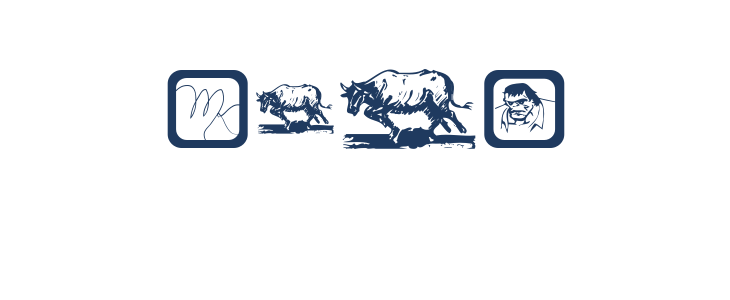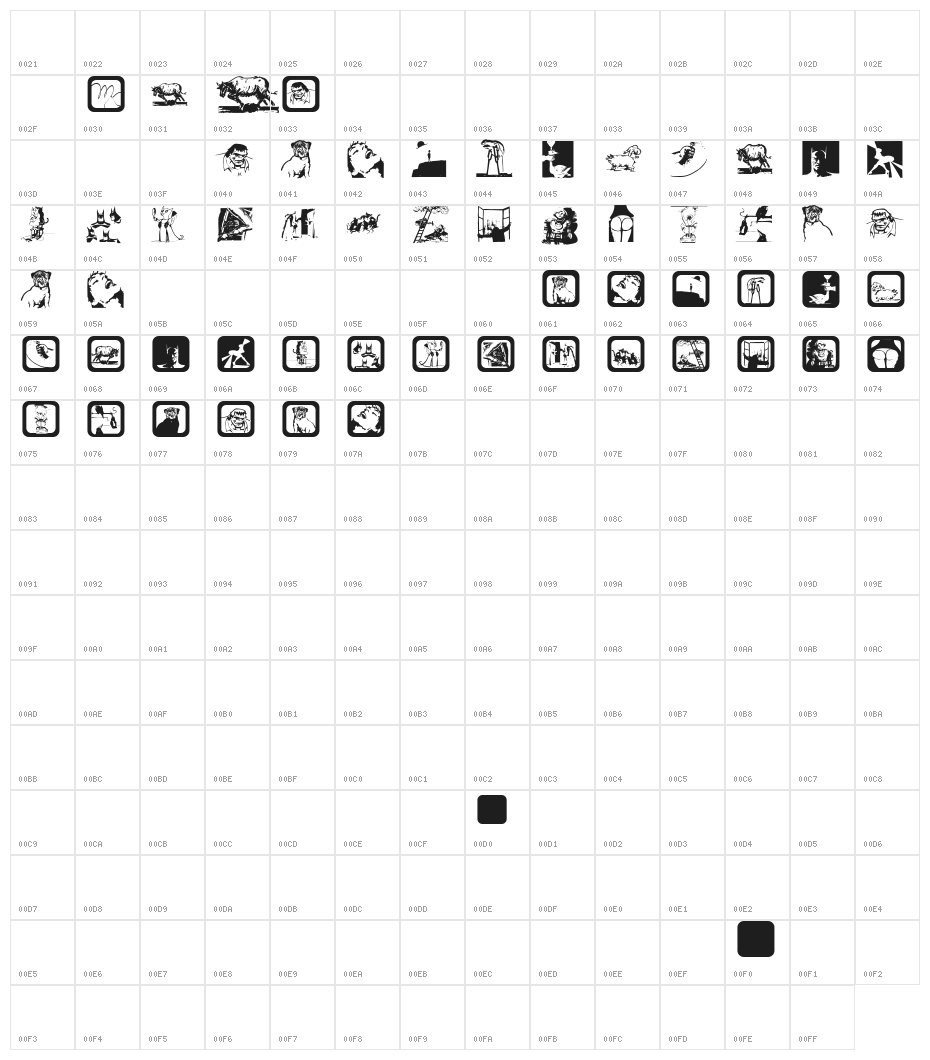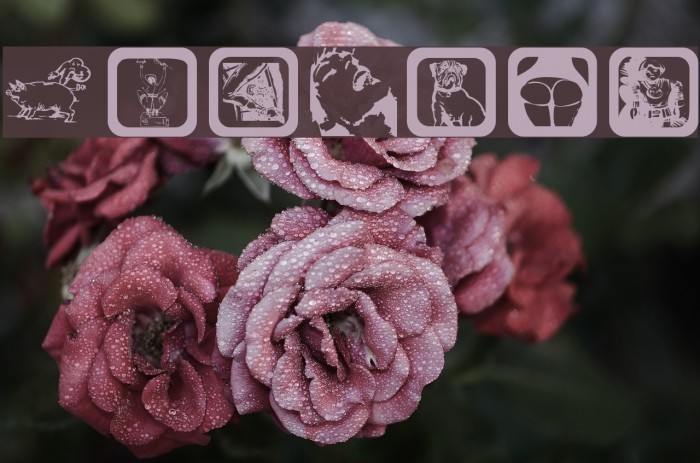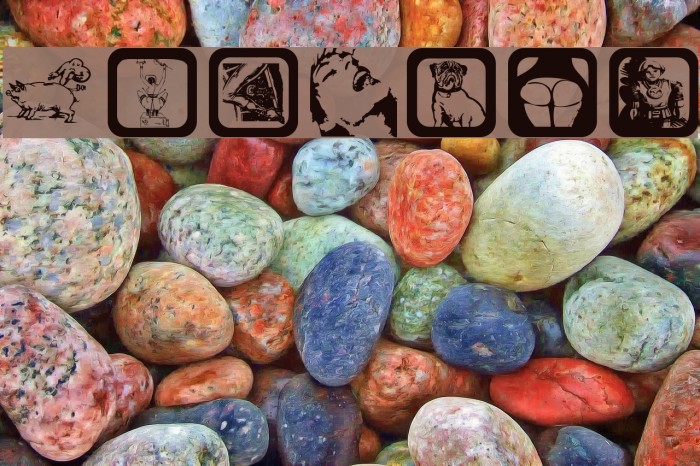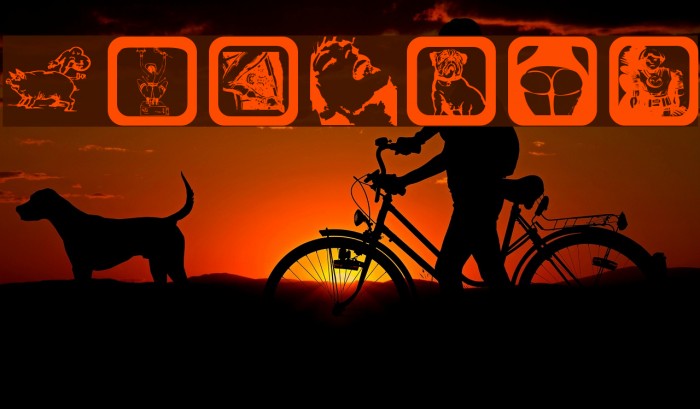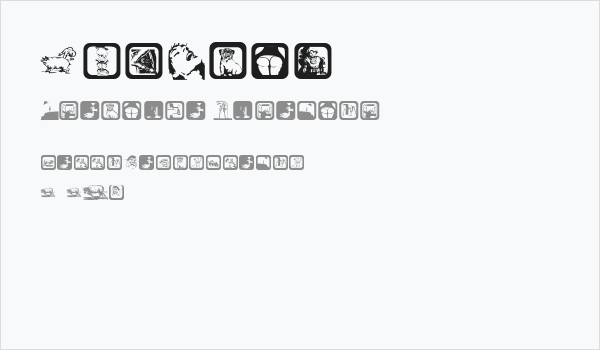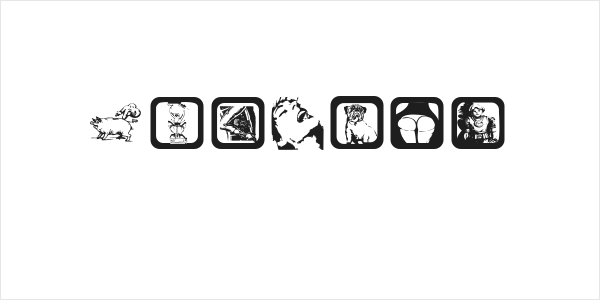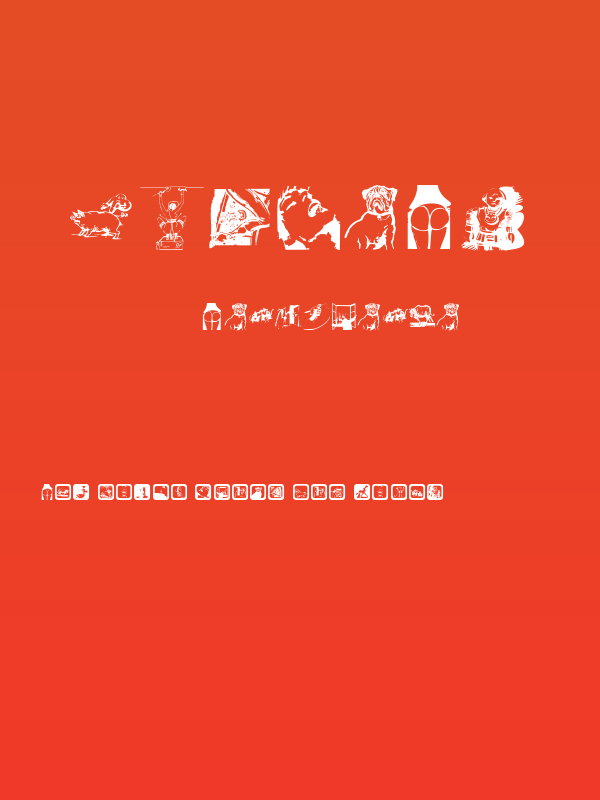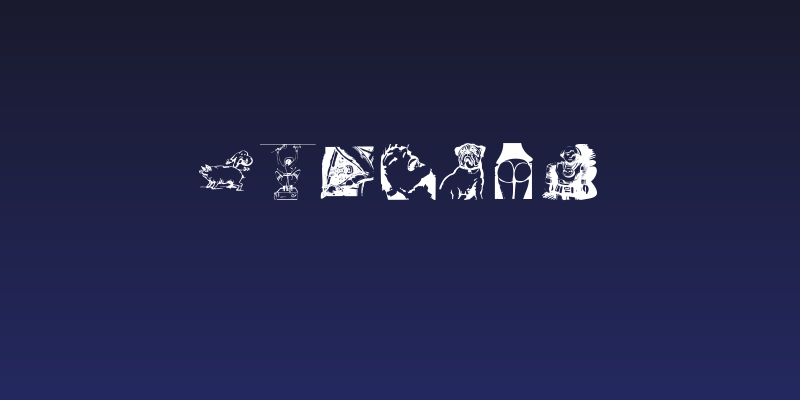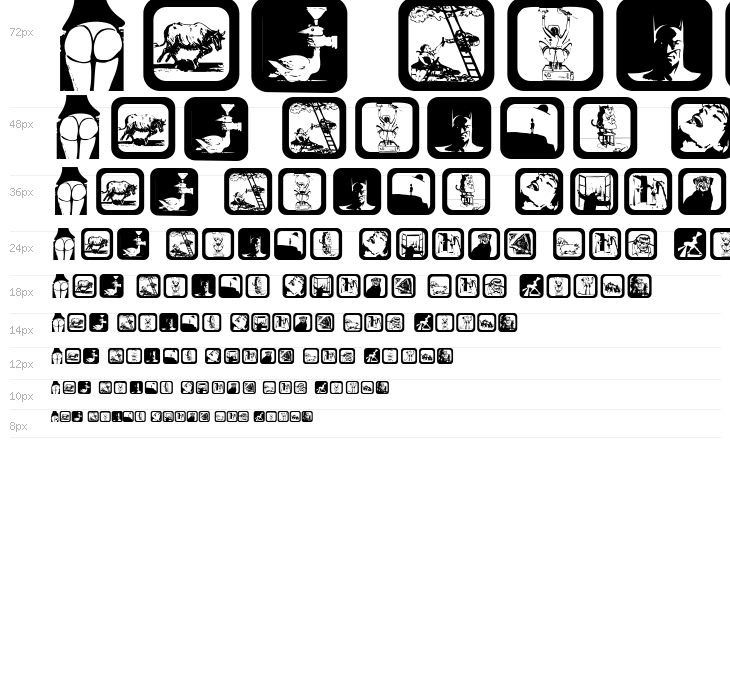
FunBats Font
FunBats Description
This font is a collection of whimsical and playful illustrations rather than traditional alphanumeric characters. Each character is represented by a unique and detailed graphic, ranging from animals to abstract figures. The style is bold and expressive, with a strong emphasis on creativity and artistic flair. The characters are enclosed in square or rectangular frames, adding a structured yet dynamic appearance. This font is ideal for projects that require a touch of humor and artistic expression, making it suitable for creative designs, posters, and novelty items.
| Use Case | Logos, Posters, Creative Designs |
| Proposed Projects | Ideal for creative designs, posters, novelty items, and any project requiring artistic expression. |